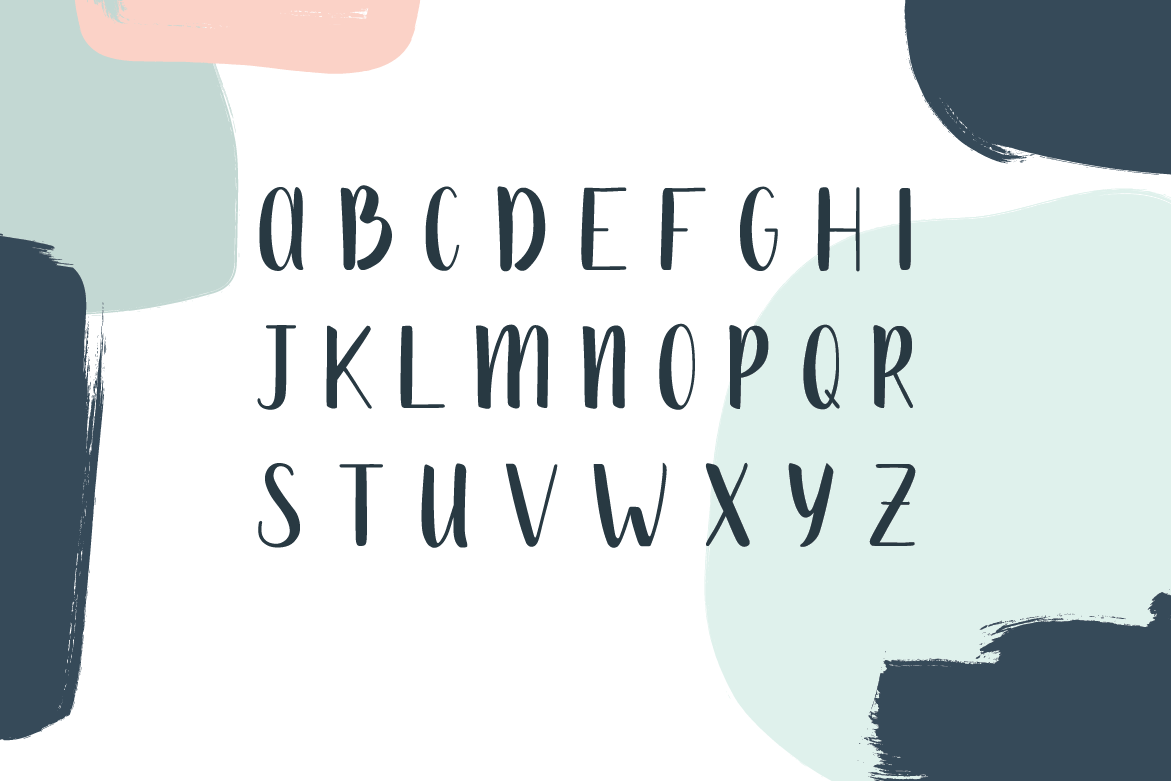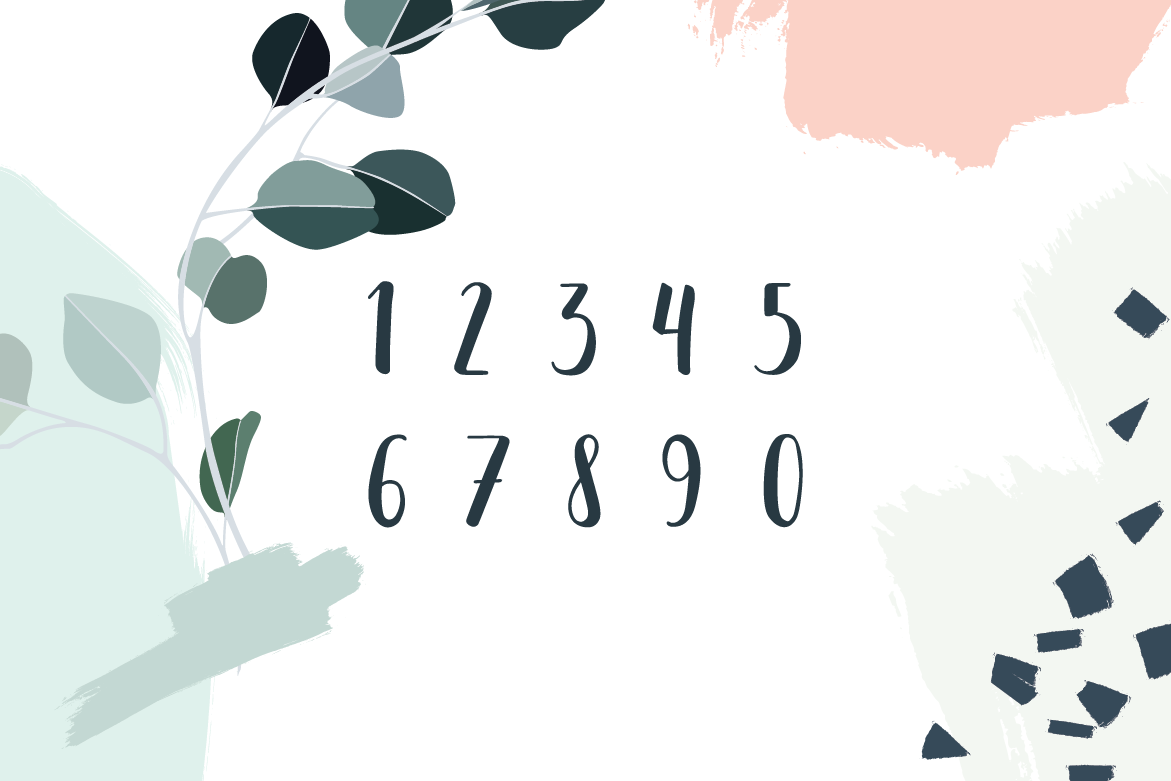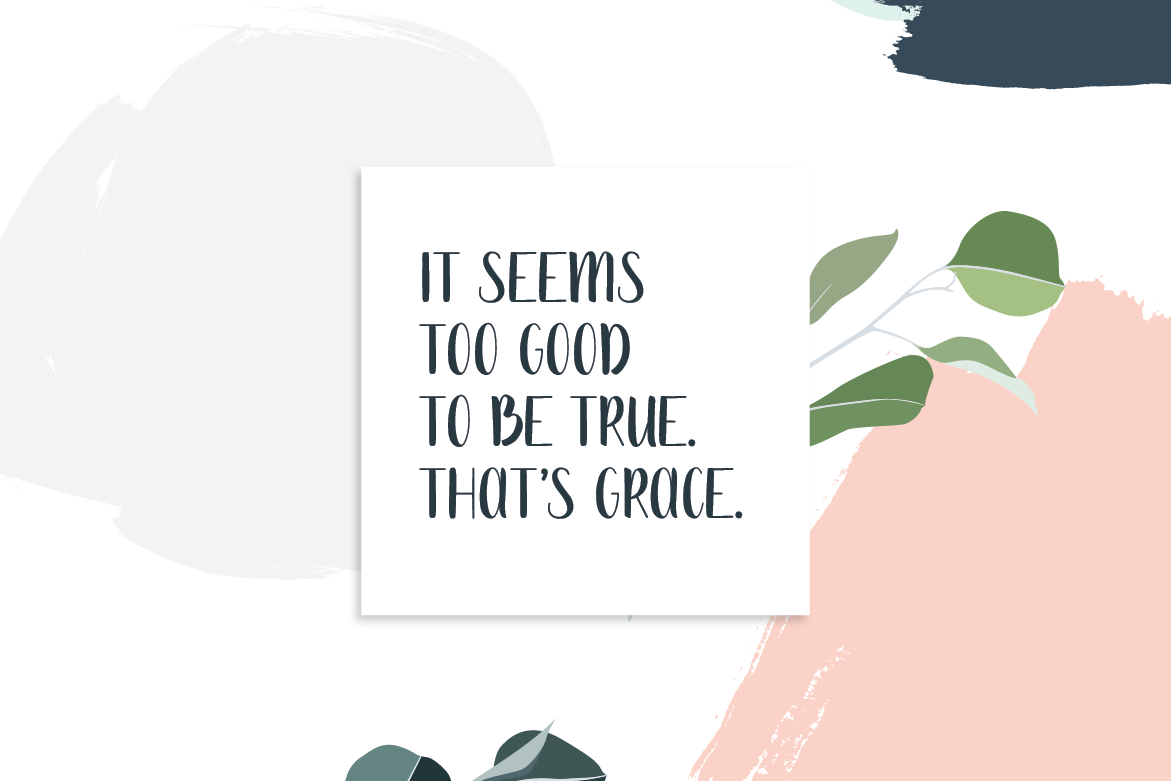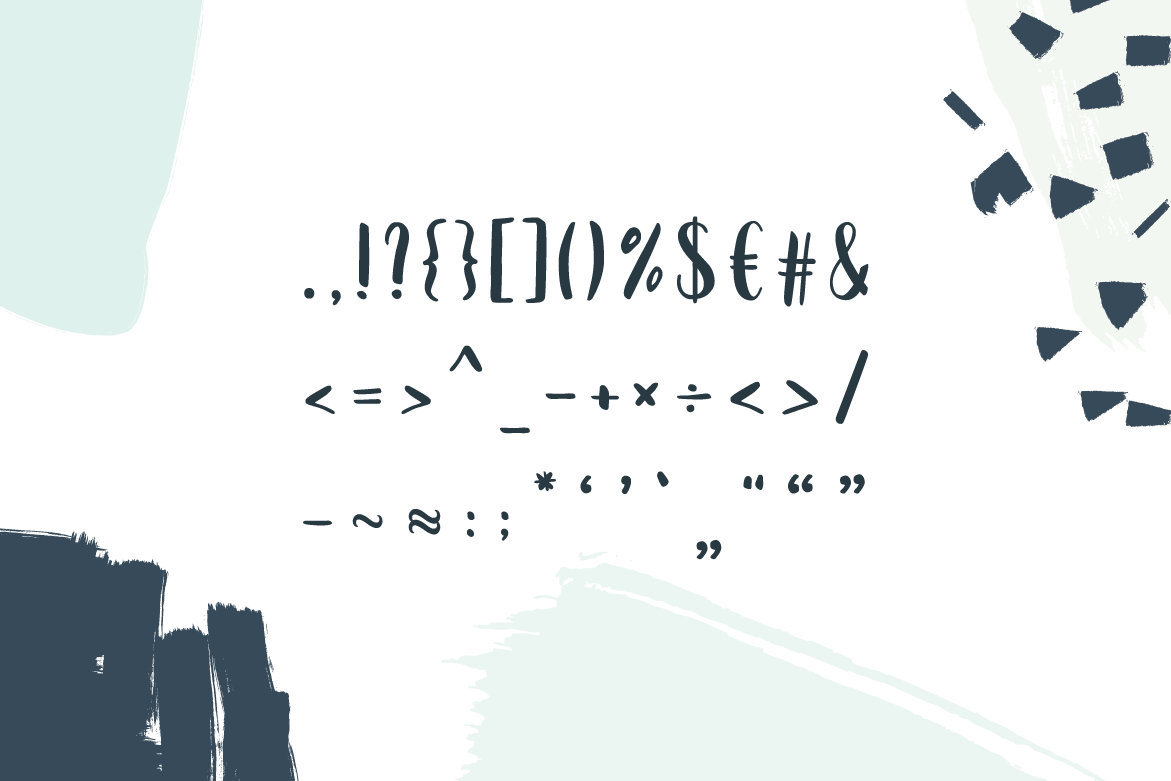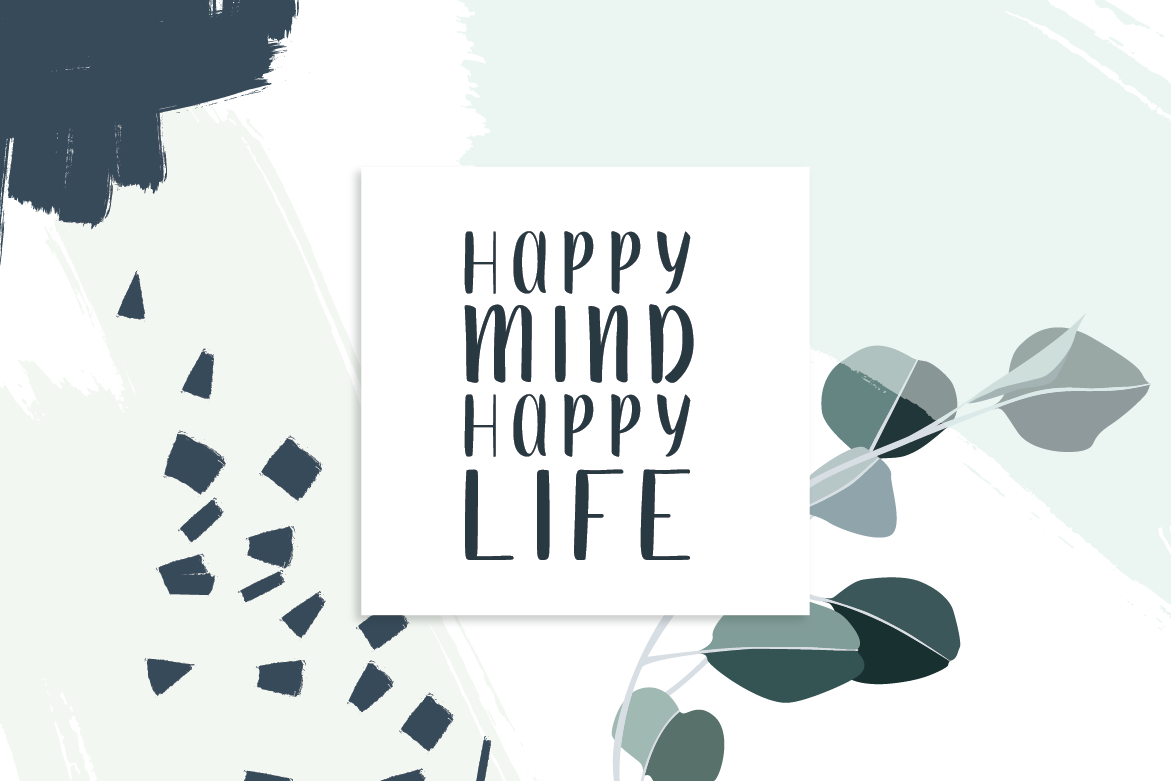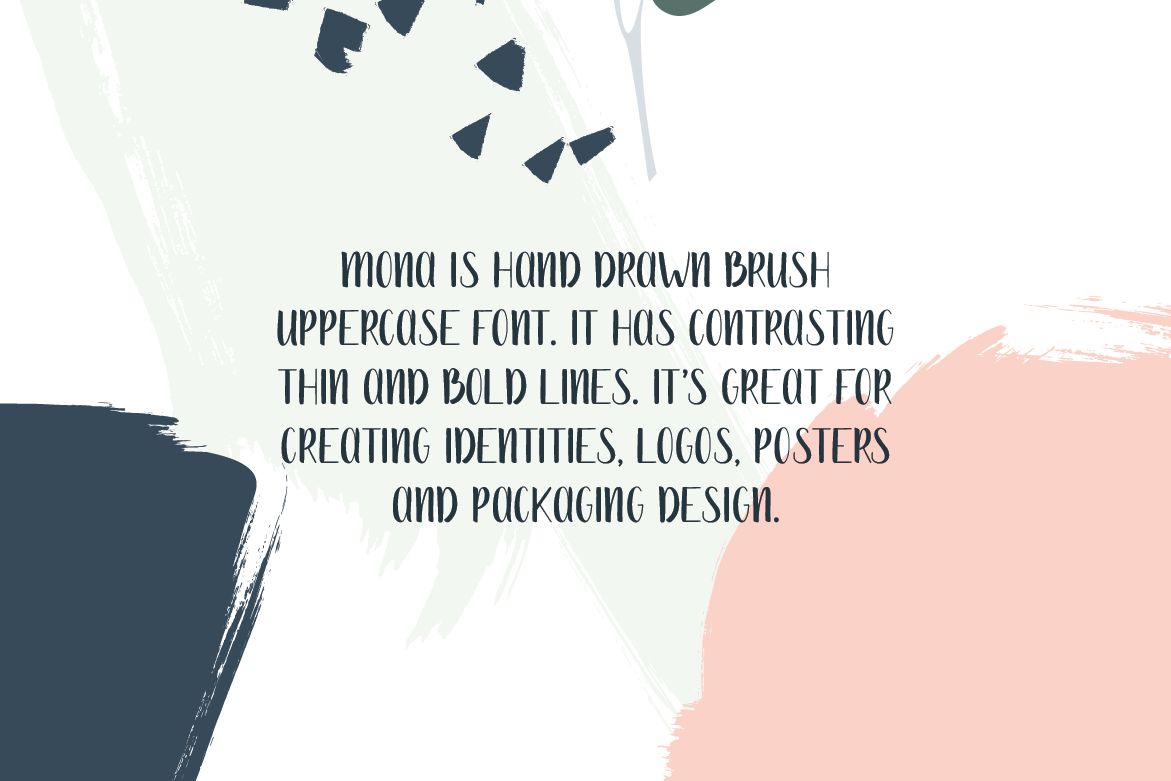
Mona Handdrawn Font is a hand drawn brush uppercase font designed by Evita Vilaka. This beautiful font comes with contrasting thin and bold lines and it’s great for creating identities, logos, posters and packaging design. Uppercase letters, numbers, symbols included. Free for personal and commercial use! Download the free version – Mona Lite – beneath the previews.